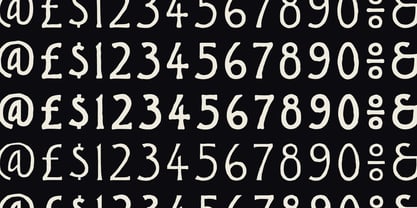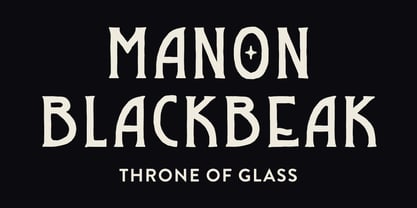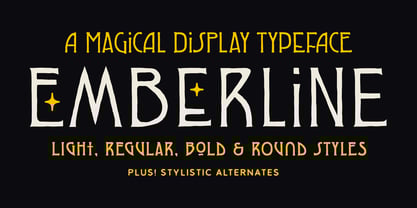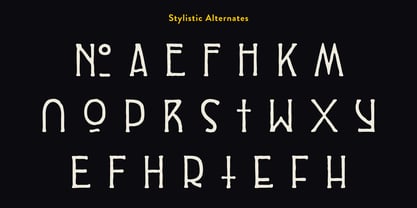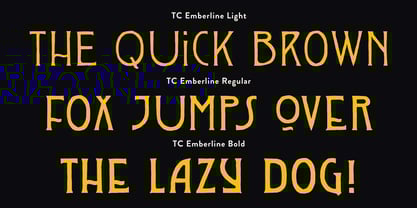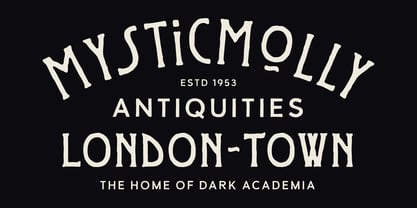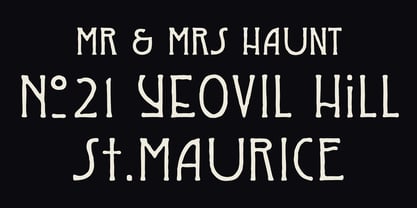
TC Emberline
by Tom Chalky
The TC Emberline Font Family was designed by Tom Chalky and published by Tom Chalky. TC Emberline contains 6 styles.
Introducing Emberline - A Magical Display Typeface
Step into a world of wonder with Emberline, a handcrafted display font family that exudes charm, mystery, and a dash of magic. Emberline features light, regular, bold, and round styles, each offering a creative selection of stylistic alternates to further enhance your creative projects.
Inspired by classic folklore and the welcomed rise of dark academia aesthetics, Emberline strikes a perfect balance between elegance and intrigue. Its organic, hand-drawn letterforms bring an authentic touch to any design, making it ideal for:
• Halloween-themed designs
• Dark academia-inspired branding
• Fantasy book covers
• Logo creation for magical businesses
• Quirky posters and signage
• And much more!
Whether you're conjuring up a logo for a mystical shop or setting the tone for a spellbinding event, Emberline is the perfect companion!
Obsessed with handwritten, handpainted, and imperfect. Almost every design can benefit from a human’s touch or, at the very least, the appearance of one. It is relatable, tactile, and authentic. It stands out in our clean and crisp digital world, and it is this charismatic and expressionate style of design that I strive for in each and every one of my fonts.